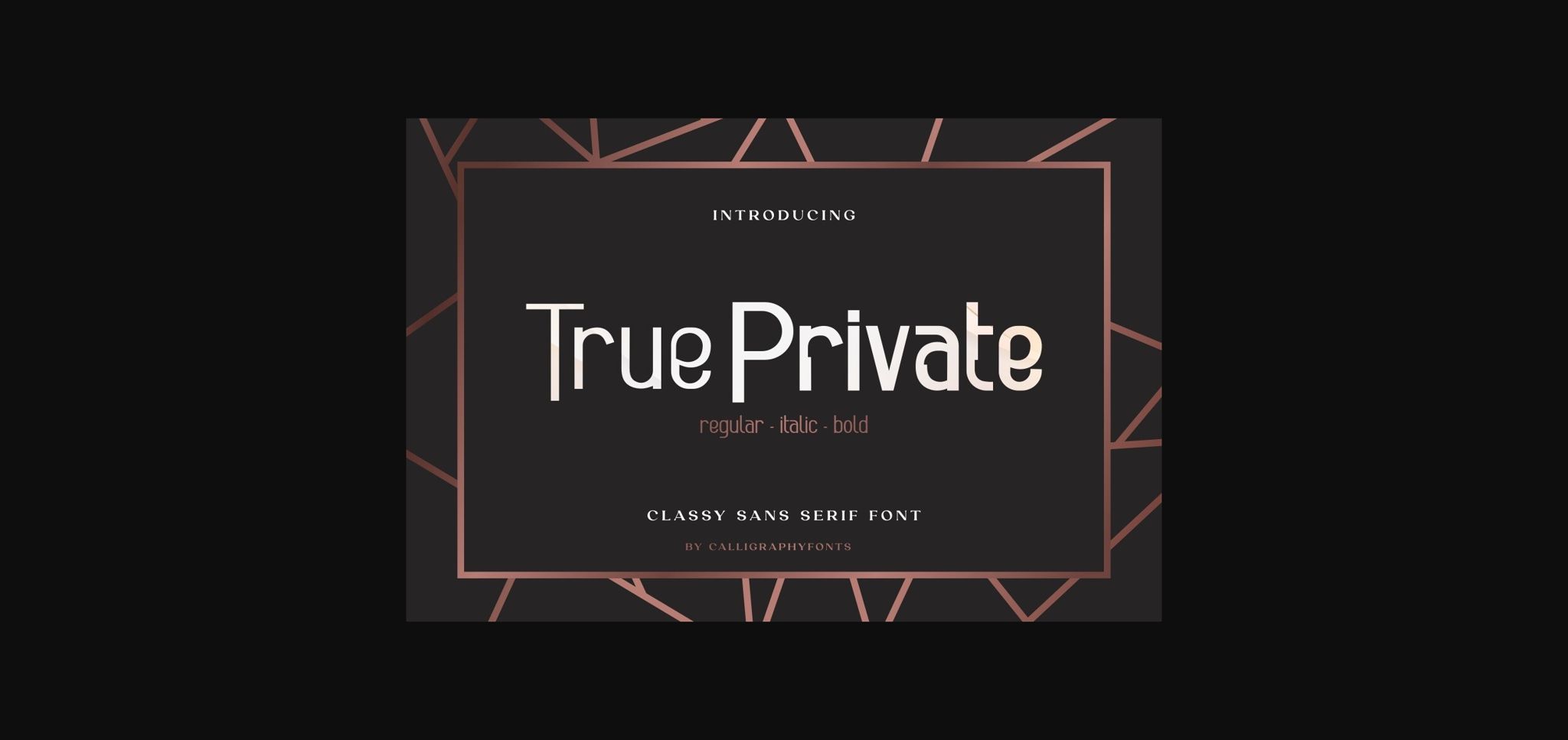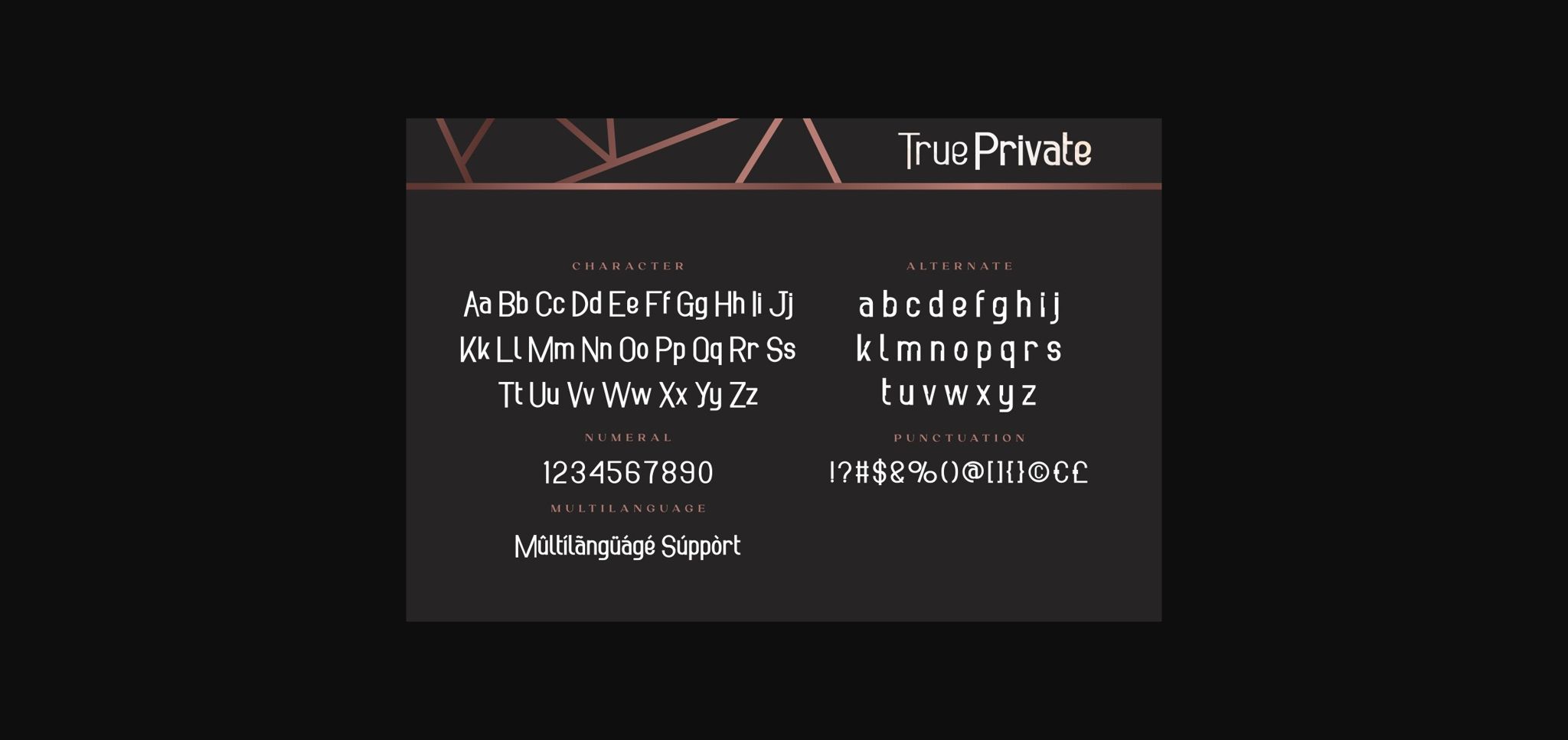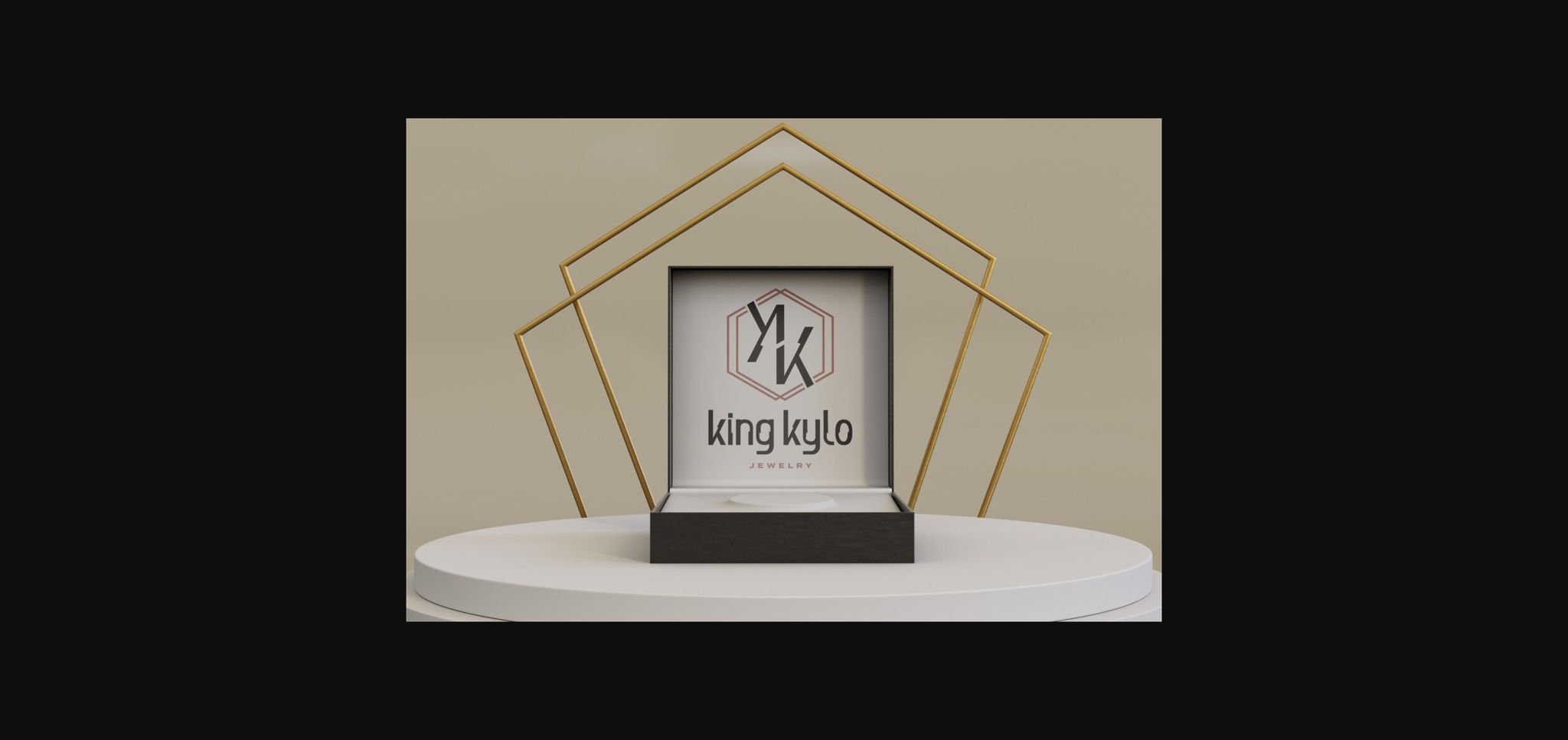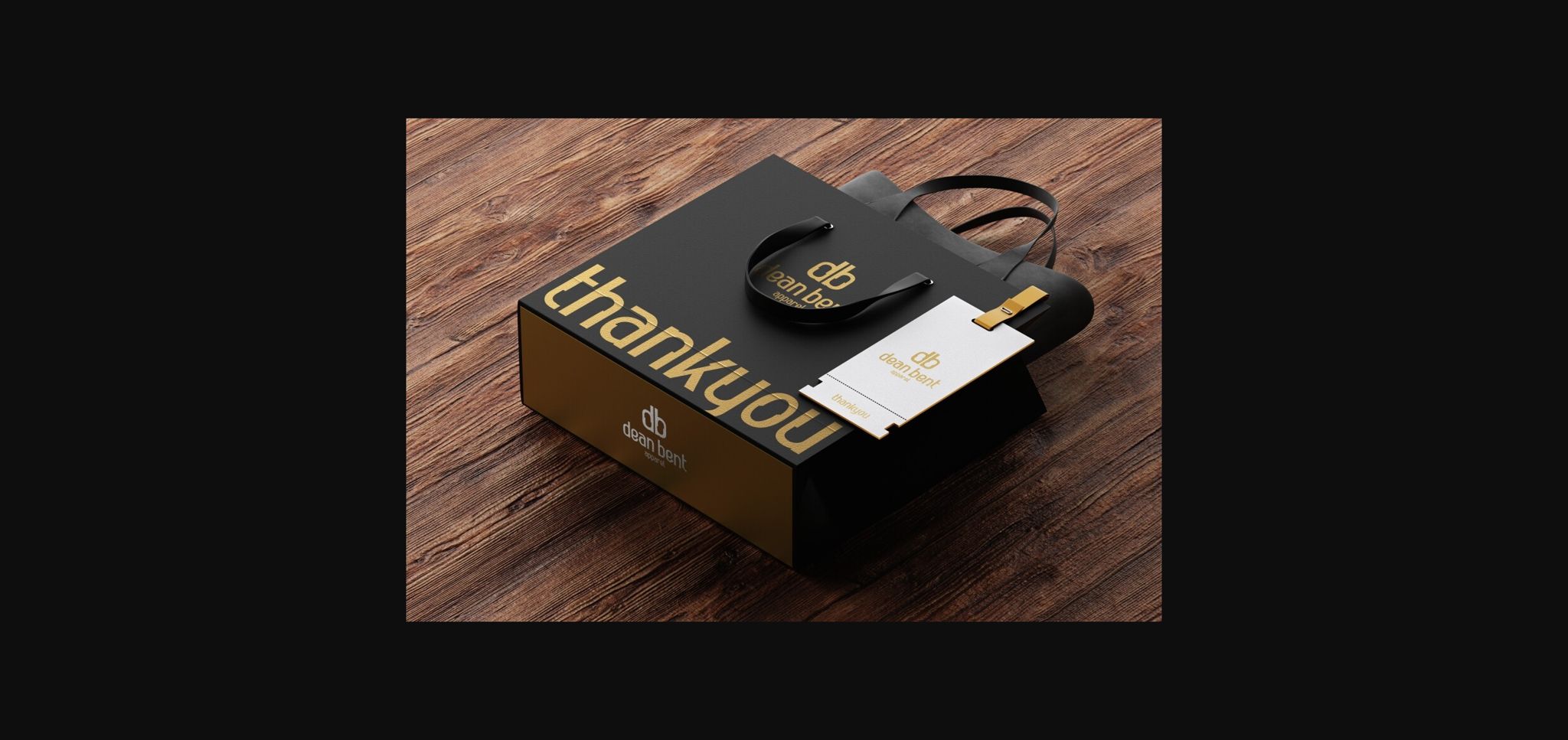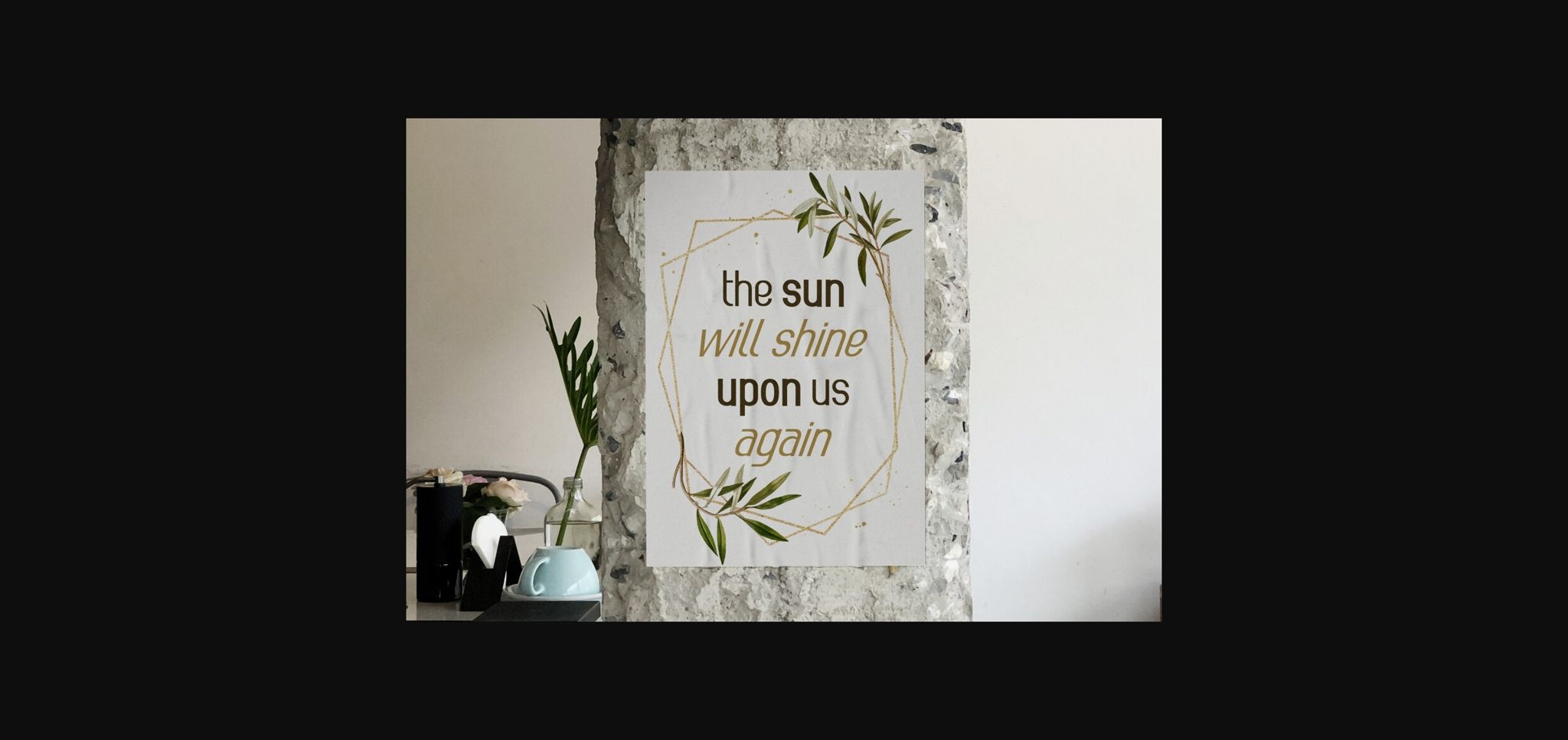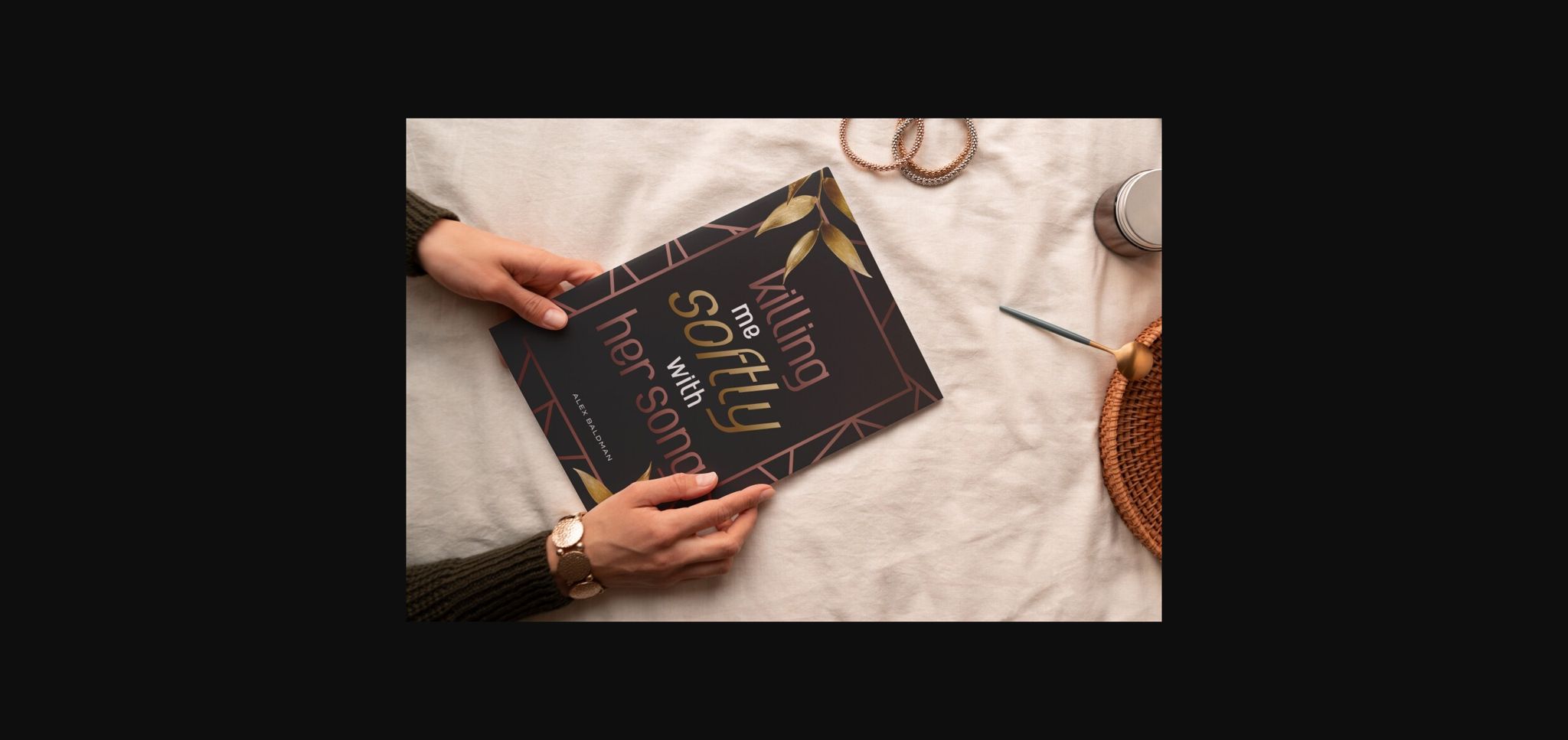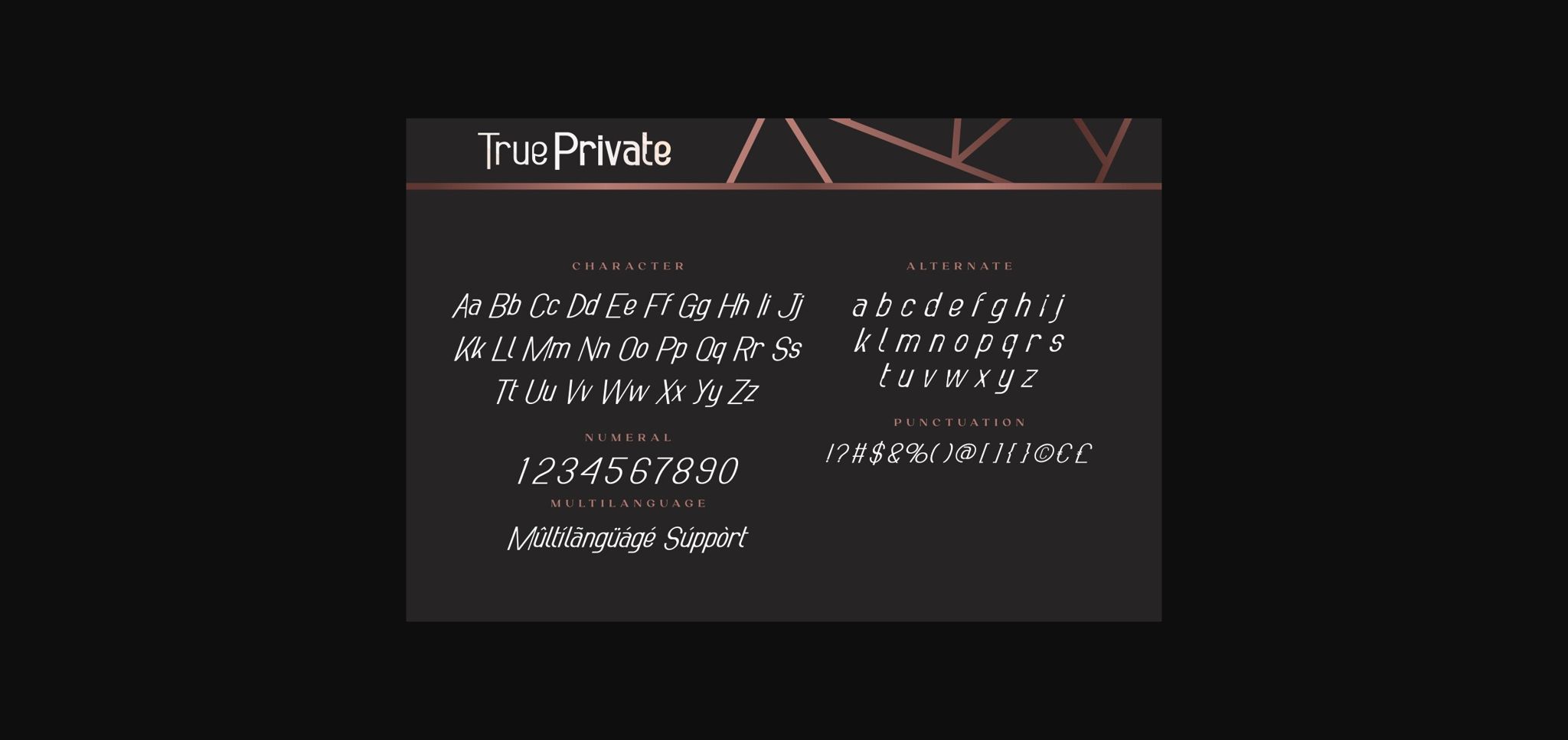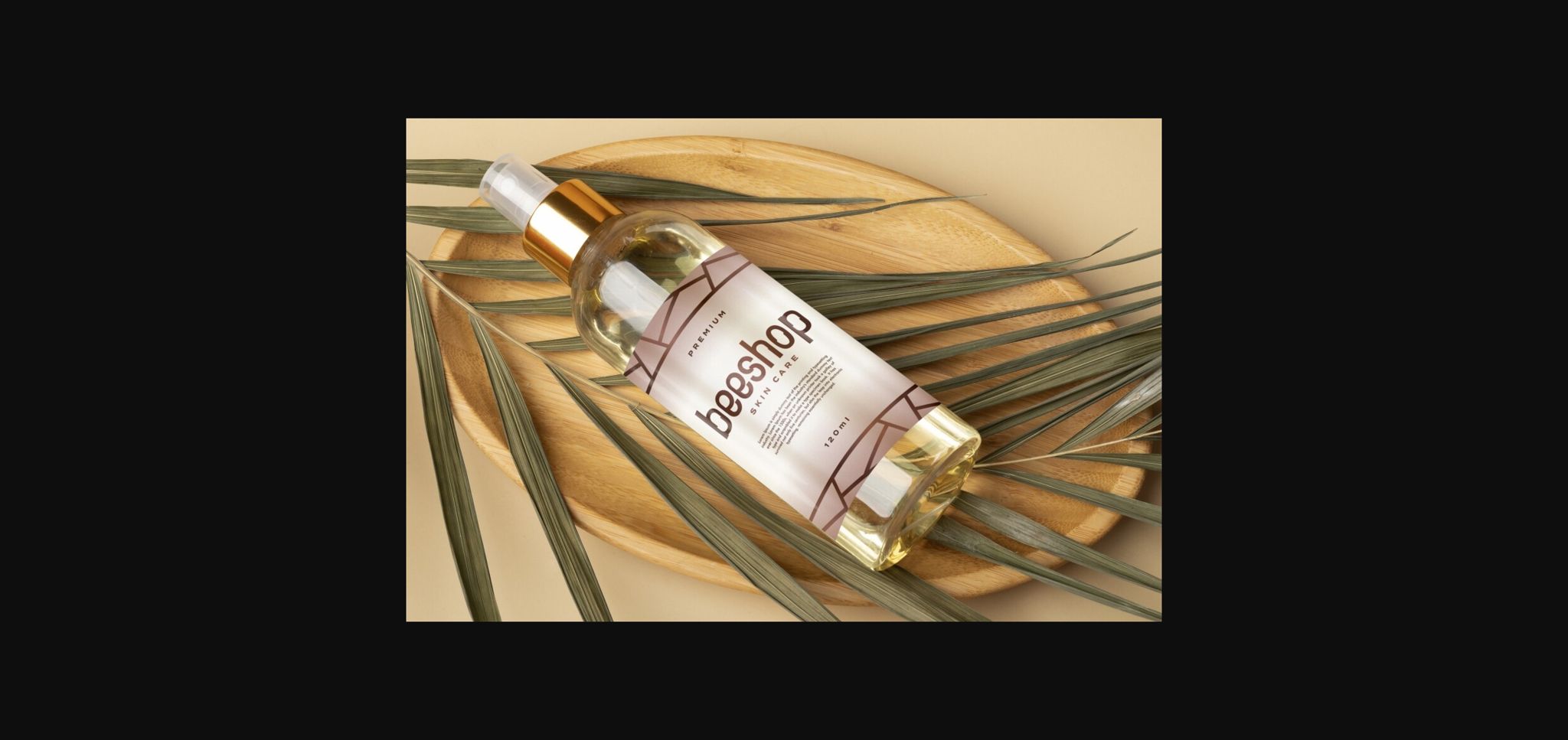
True Private Font
About True Private Font
True Private Font is a classy sans serif font which is very interesting so it will look futuristic and packed in 3 types of styles, namely: Regular, Italic, and Bold. The slim and tall style with several unique shapes present such as 3D makes it more flexible for various designs, billboards, body text, headers, mockups, posters, product labels, shopping bag brands, etc.